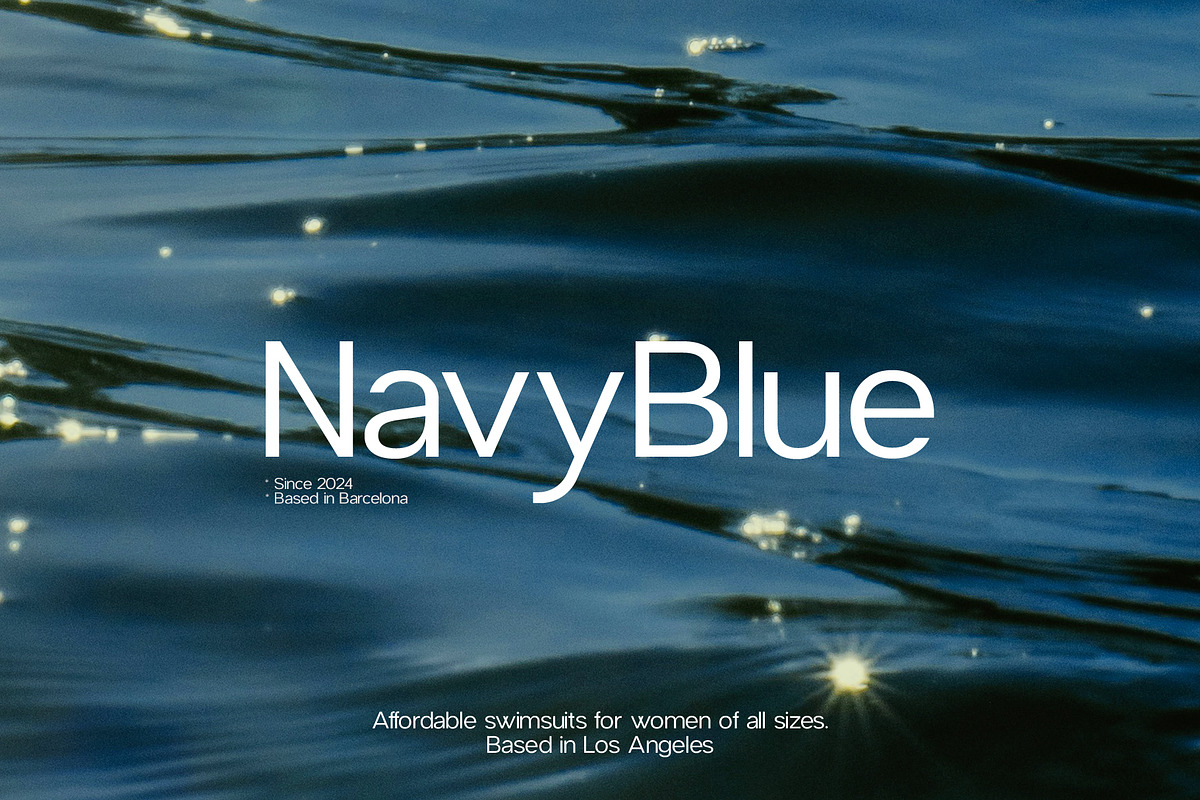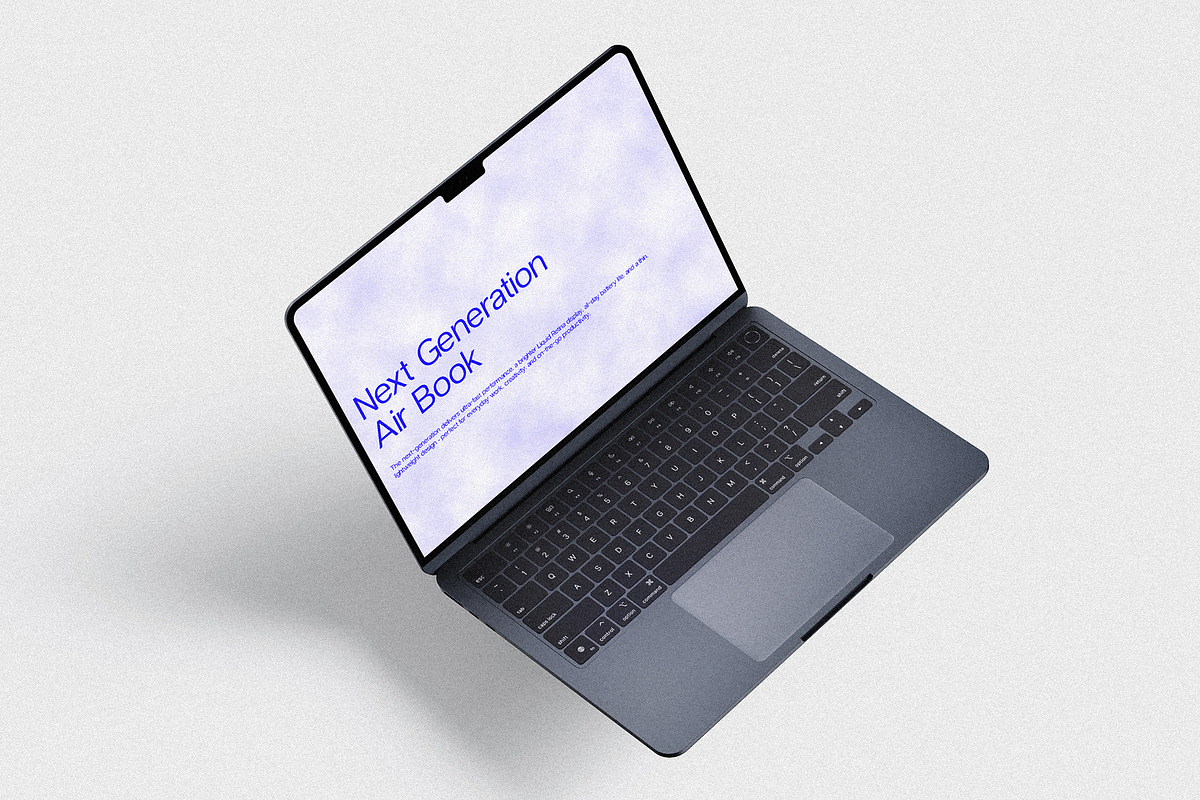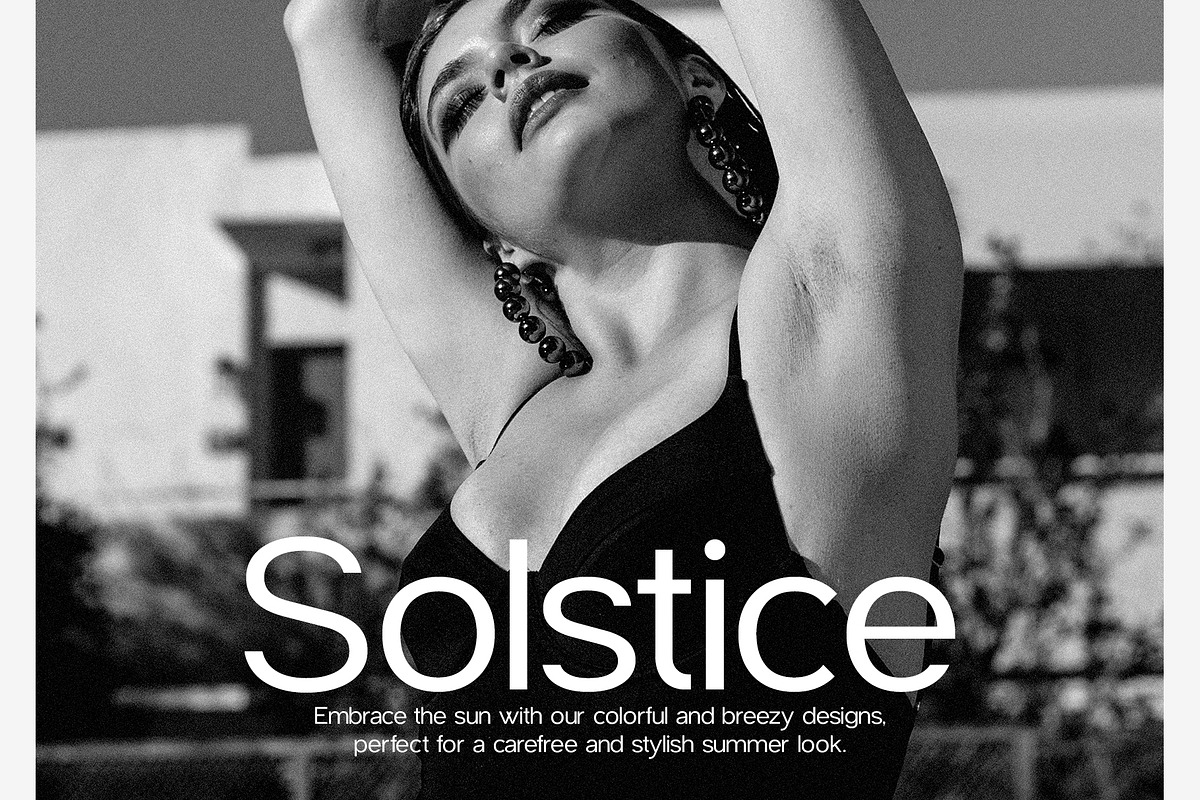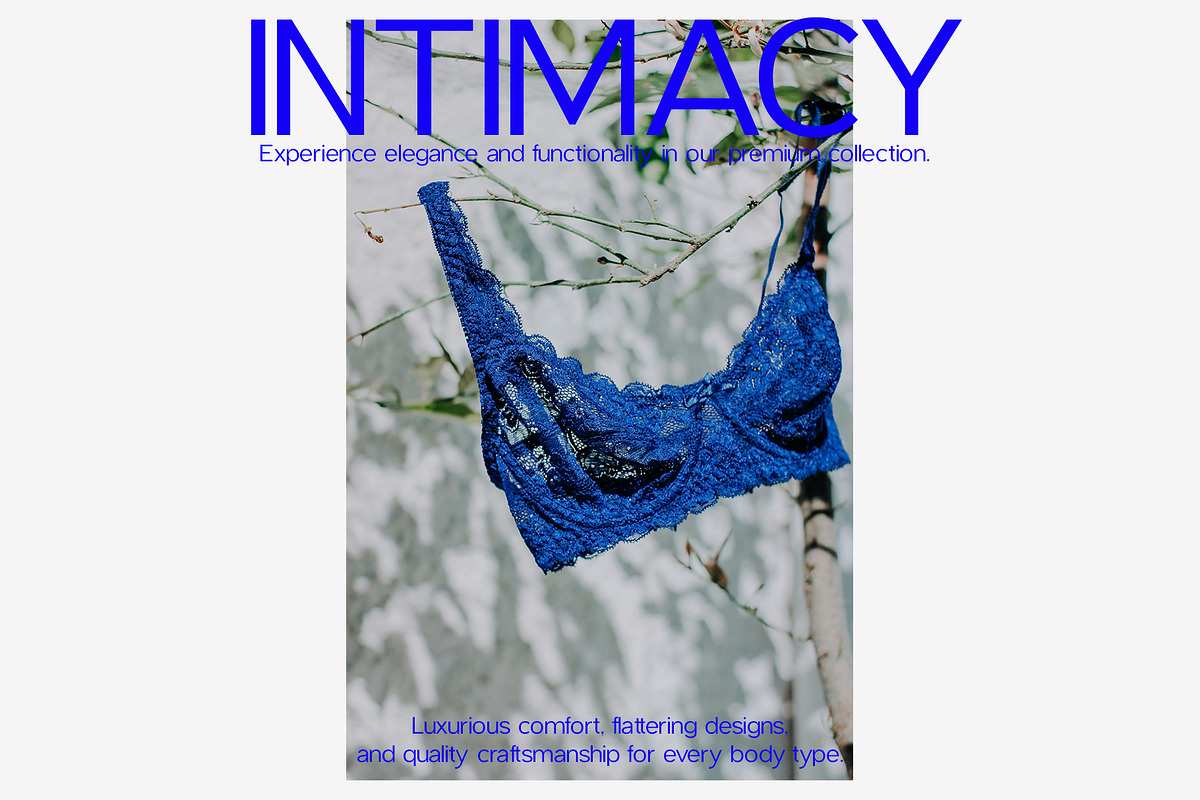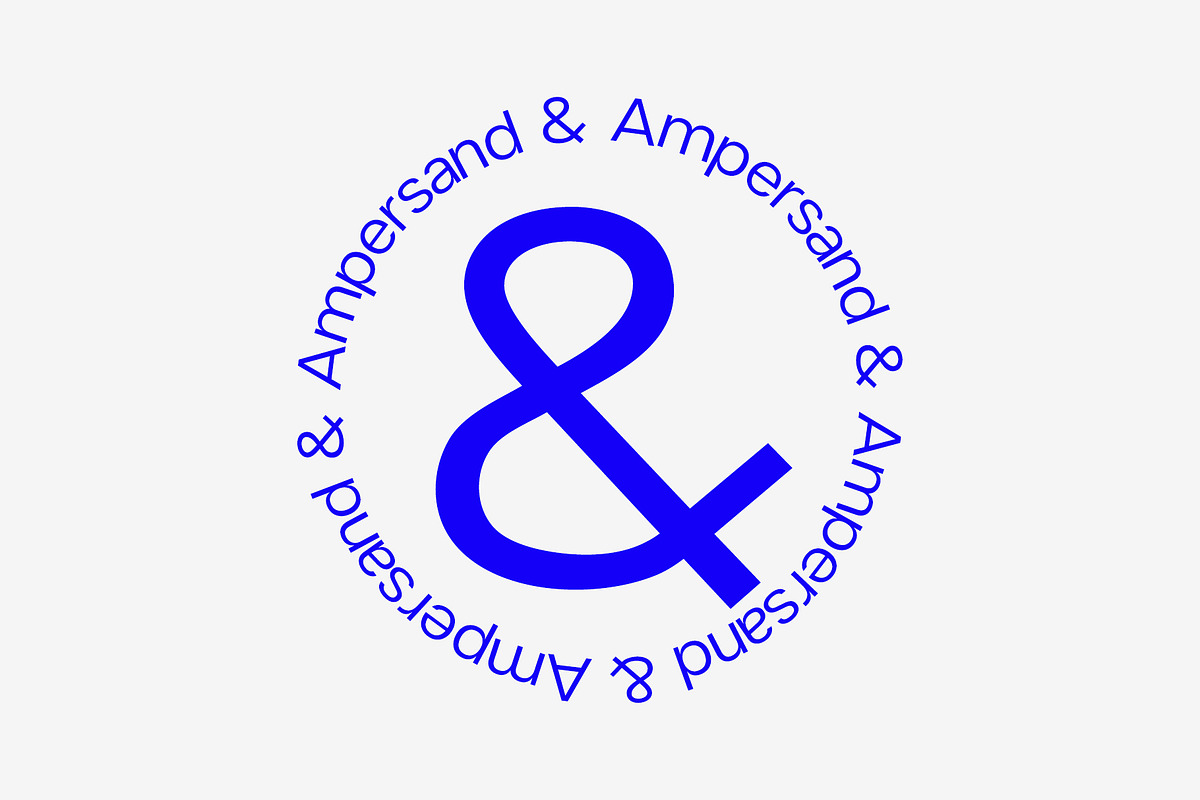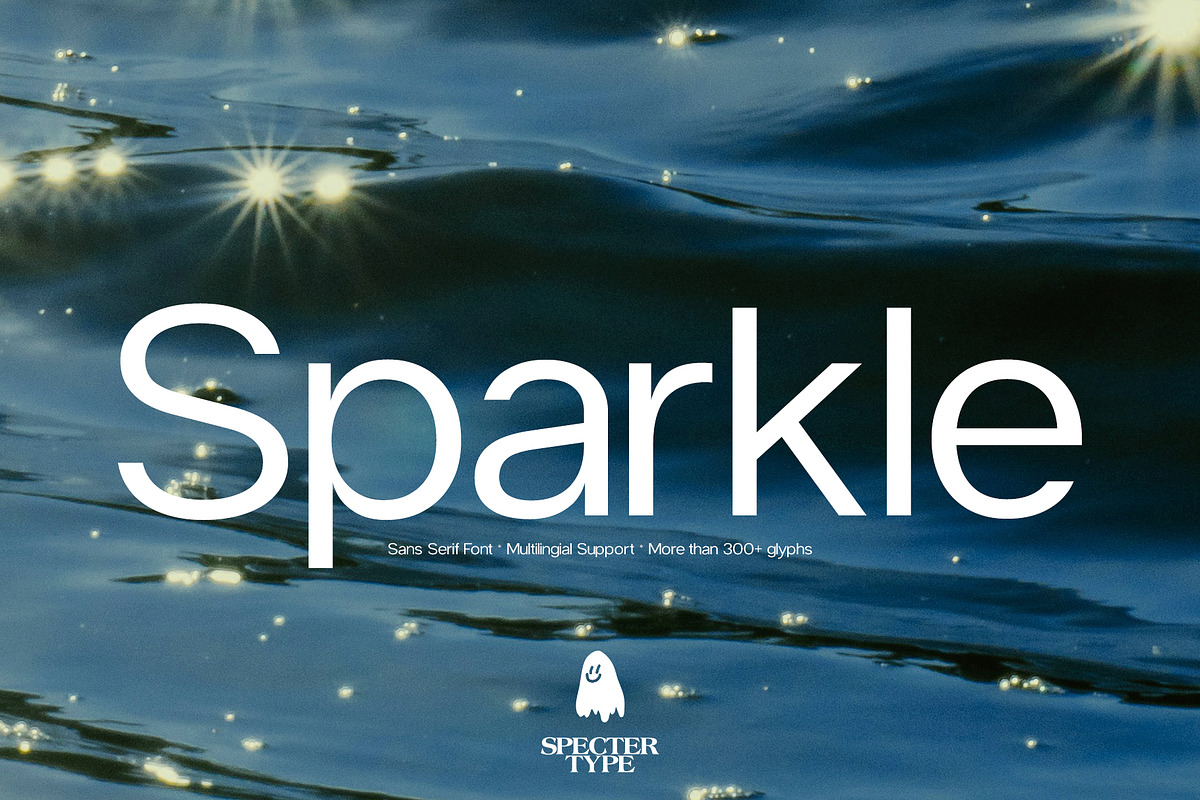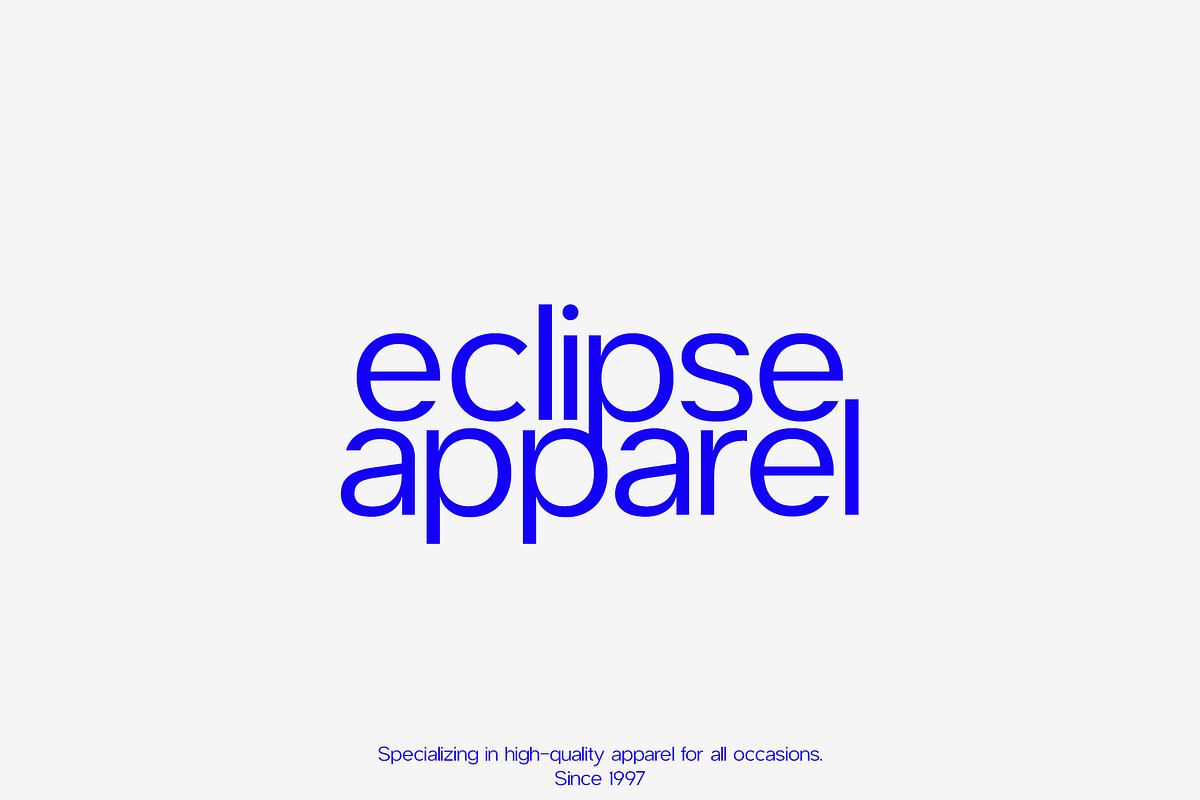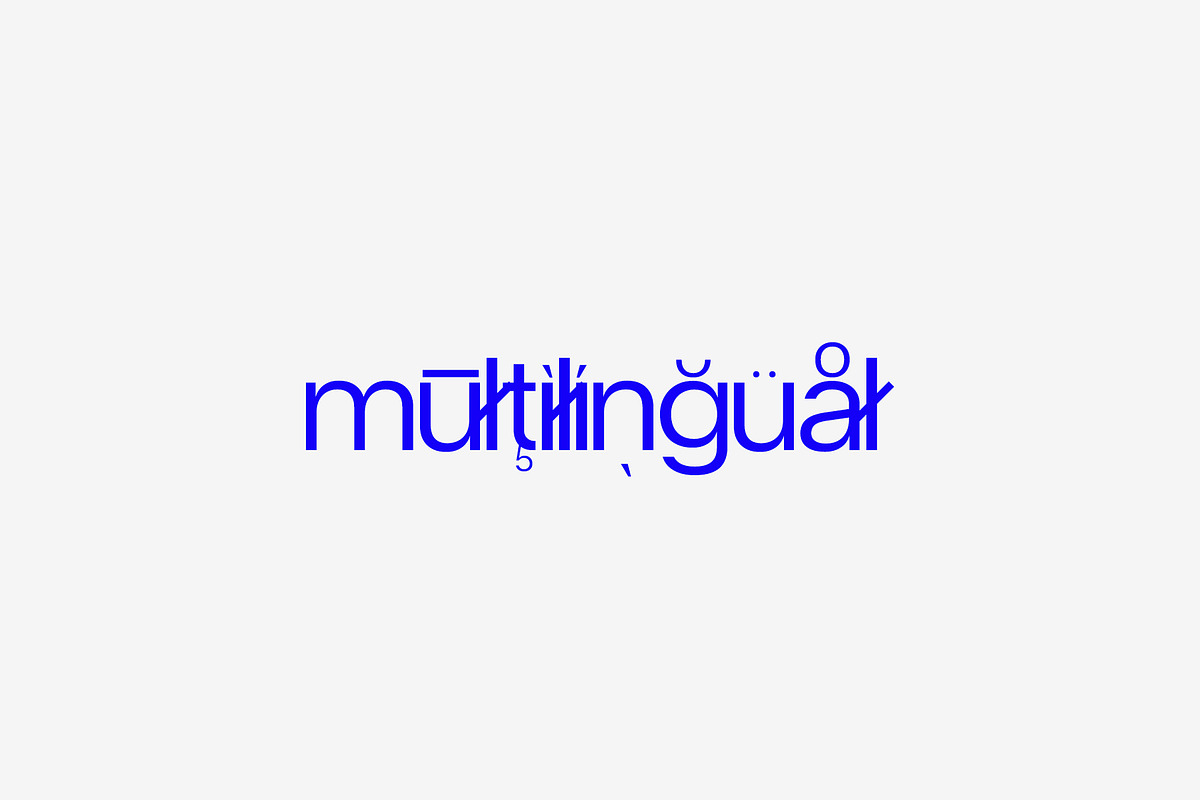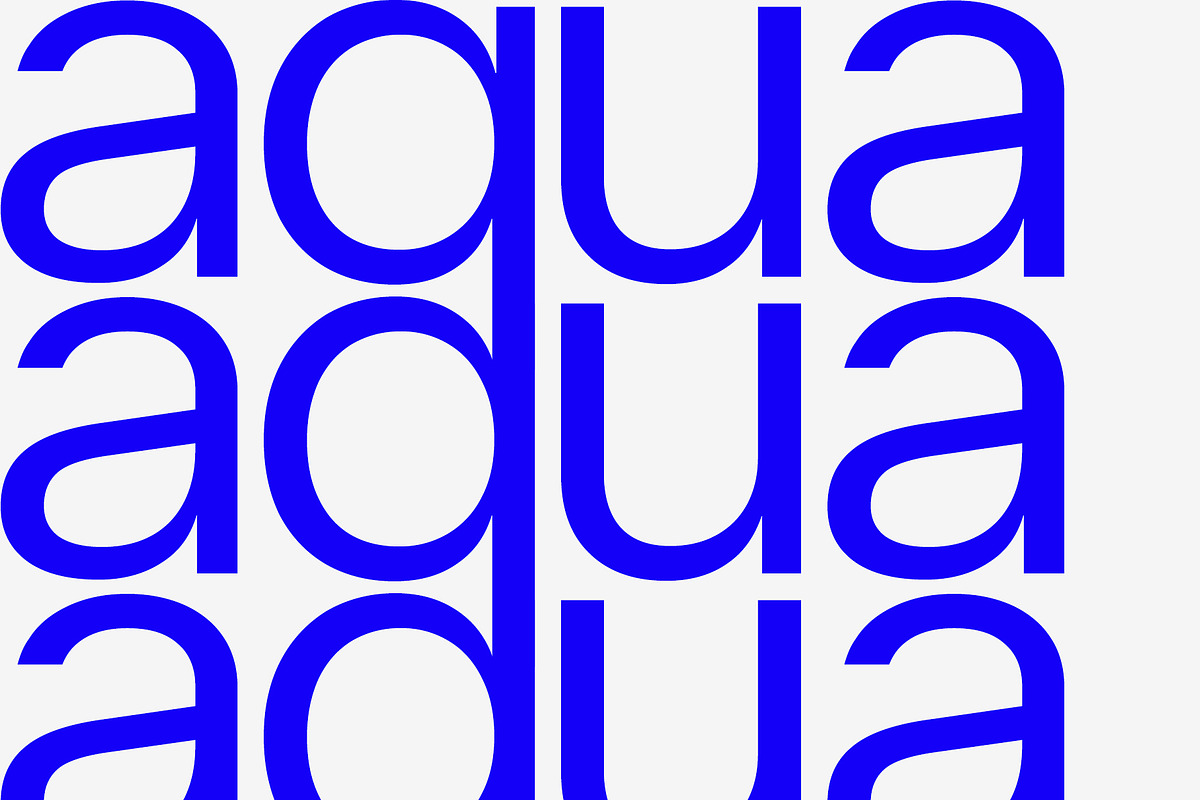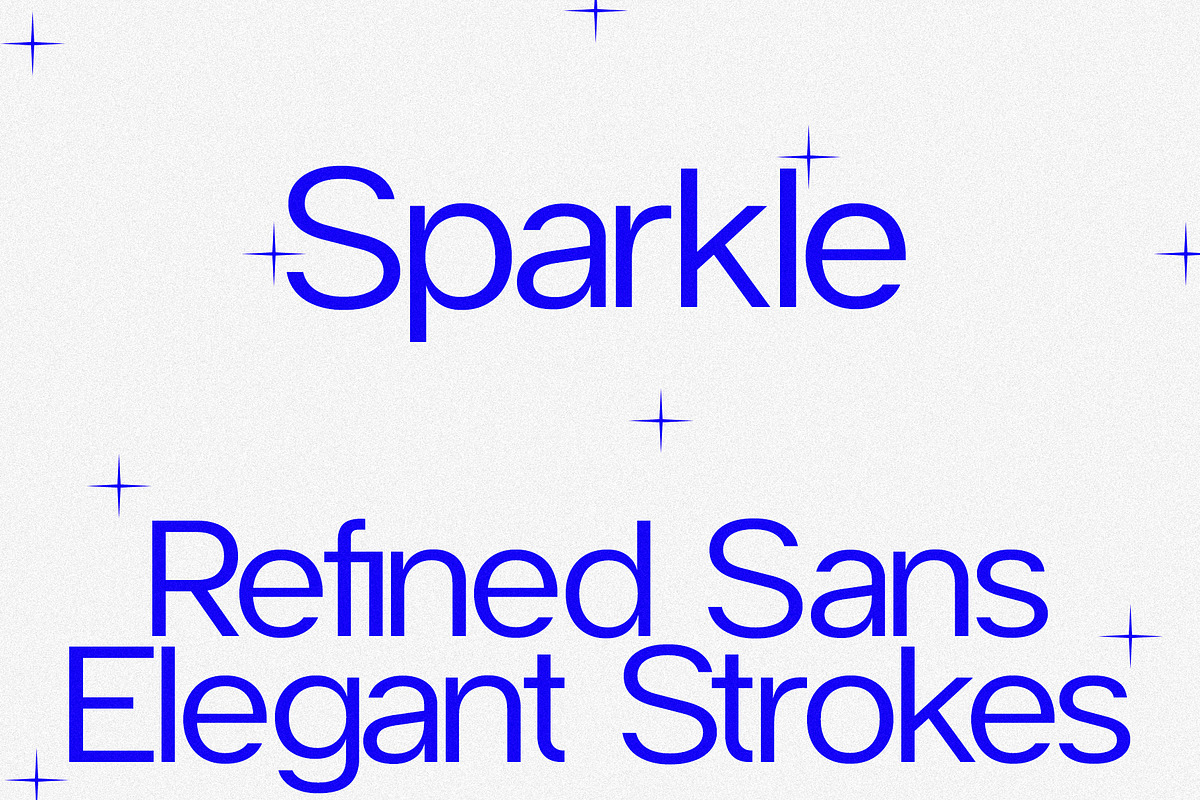
Sparkle - Modern Sans Serif
Sparkle is a modern sans serif font created to bring a clean, fresh, and confident feel to your designs. With smooth curves, balanced spacing, and carefully crafted letterforms, it offers a polished look that still feels approachable and easy to read. Sparkle is designed to be highly versatile, making it a great choice for branding, logos, websites, social media graphics, headlines, and everyday design projects. It blends professionalism with a friendly, modern character, helping your work feel stylish, clear, and thoughtfully designed without ever feeling overdone.
Sparkle features uppercase & lowercase letters, numbers & symbols, multilingual support, over 250+ glyphs.